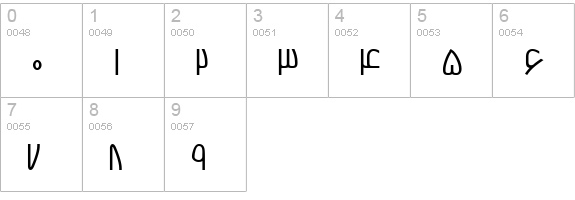
B Bardiya Font Details
B Bardiya font is a stunning display typeface that exudes elegance and sophistication. With its unique and intricate design, this font is perfect for adding a touch of luxury to your projects. The carefully crafted letterforms of B Bardiya font make it stand out and grab attention, making it ideal for headlines, logos, and other eye-catching designs. What's even better is that B Bardiya font is available for free download at FontsMarket.com. Yes, you read that right - you can get your hands on this beautiful font without spending a dime! So why wait? Download B Bardiya font today and elevate your designs to the next level with its timeless appeal and charm.